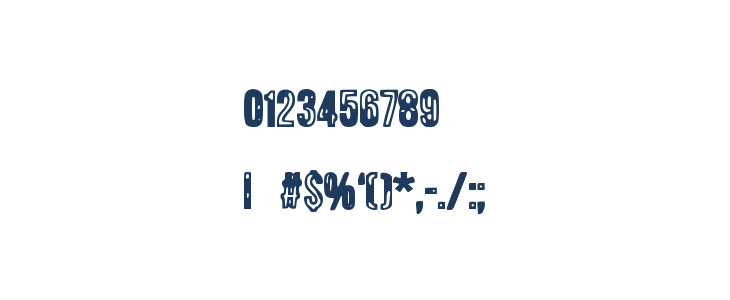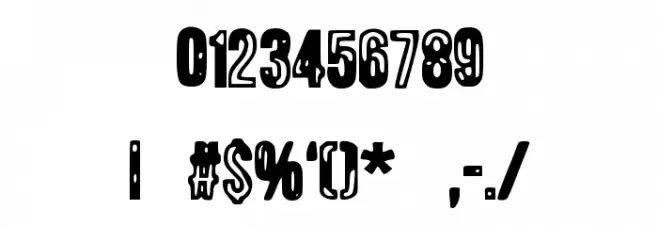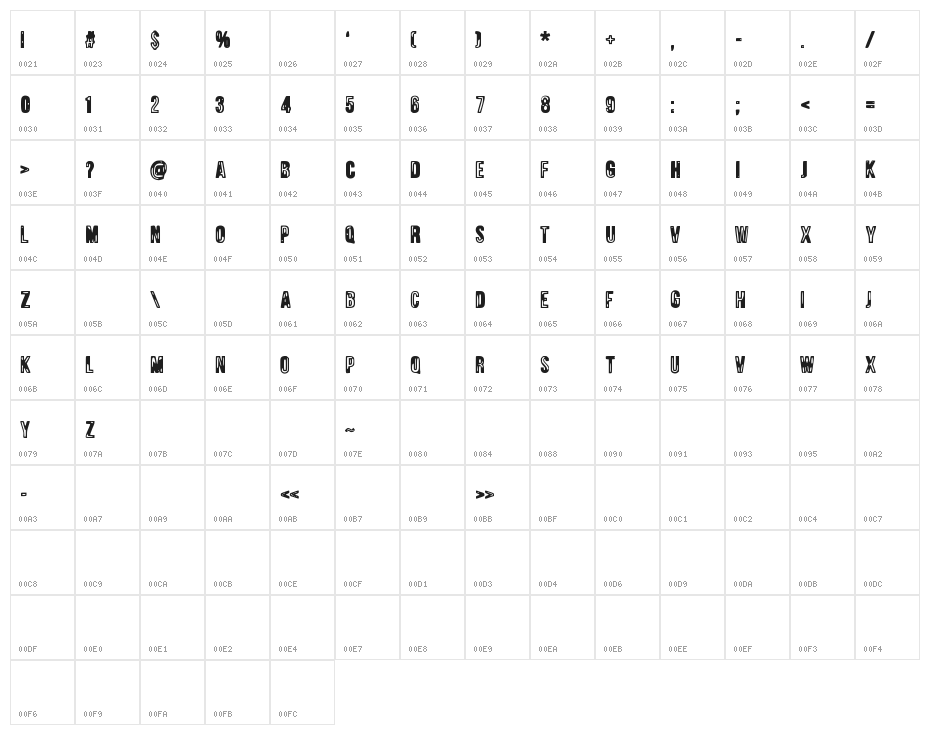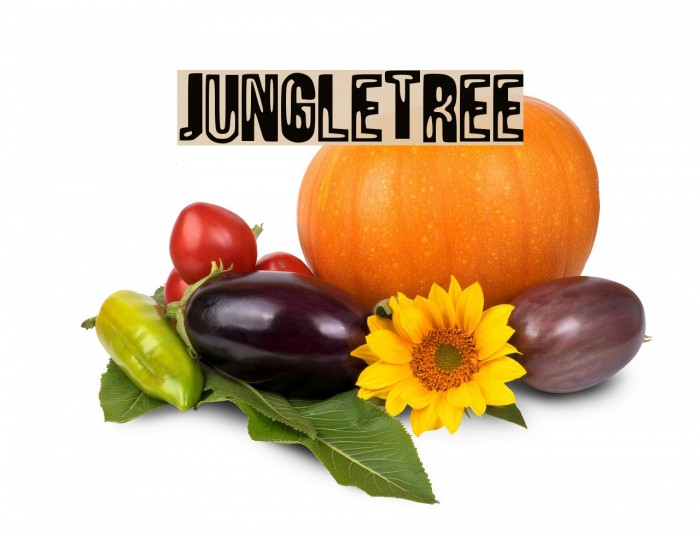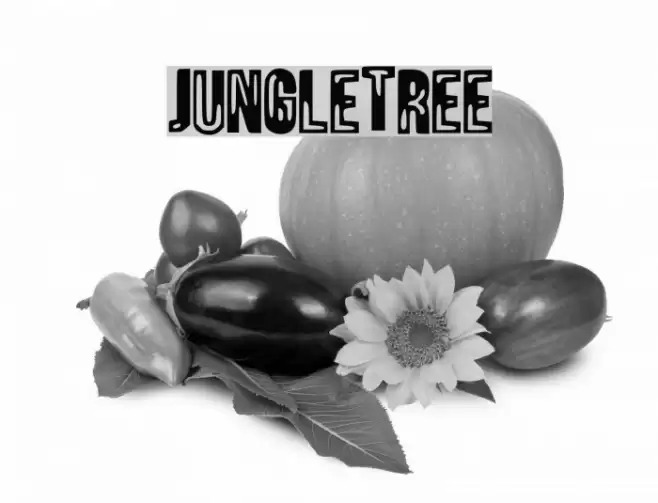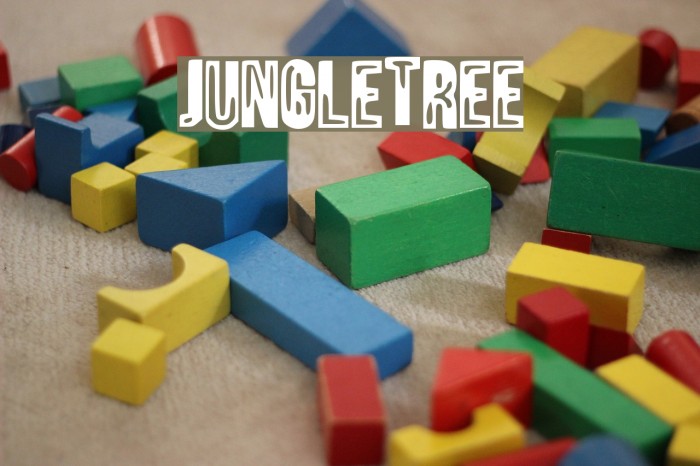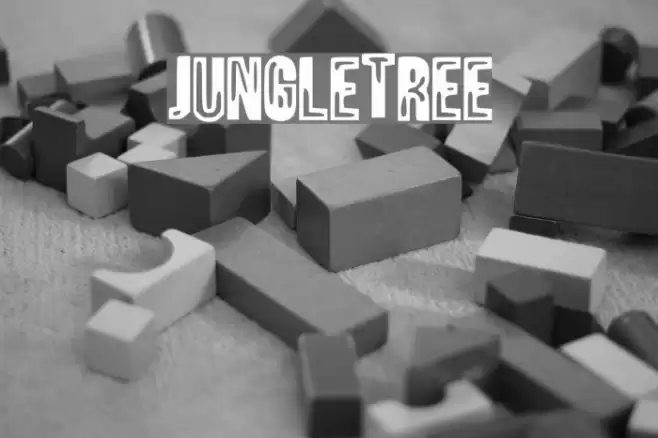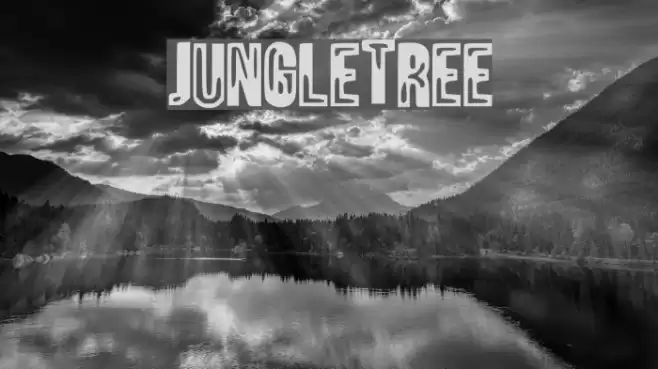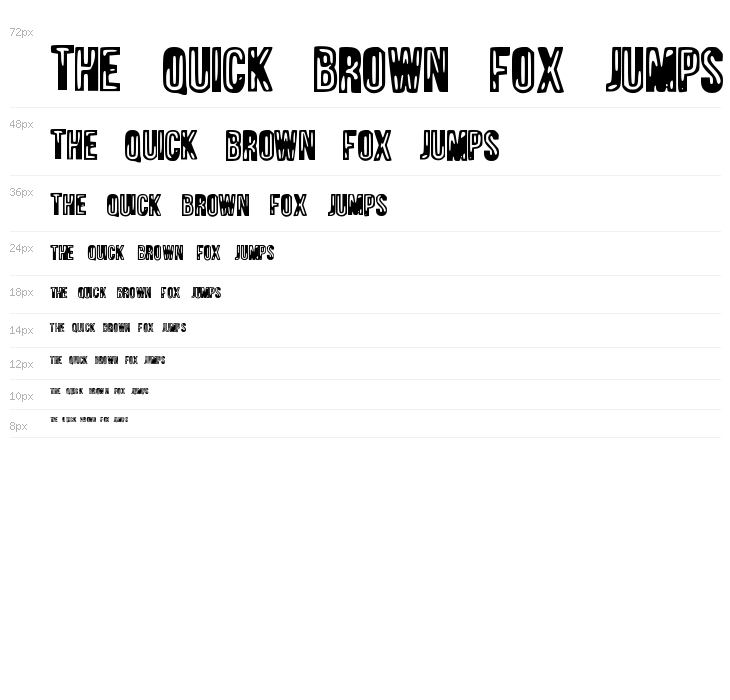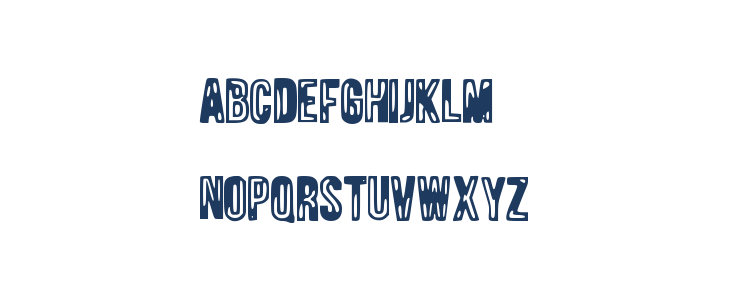
JungleTree Font
JungleTree Description
This font features a bold and playful design with a jungle-inspired theme. The characters are filled with irregular shapes and cutouts, giving them a unique and adventurous appearance. The uppercase and lowercase letters maintain a consistent style, with thick strokes and a slightly condensed form. The numbers and special characters follow the same playful theme, making the font suitable for eye-catching designs. The overall look is dynamic and energetic, perfect for projects that require a fun and engaging visual impact.
| Proposed Projects | Ideal for children's books, adventure-themed posters, playful branding, and event invitations. |